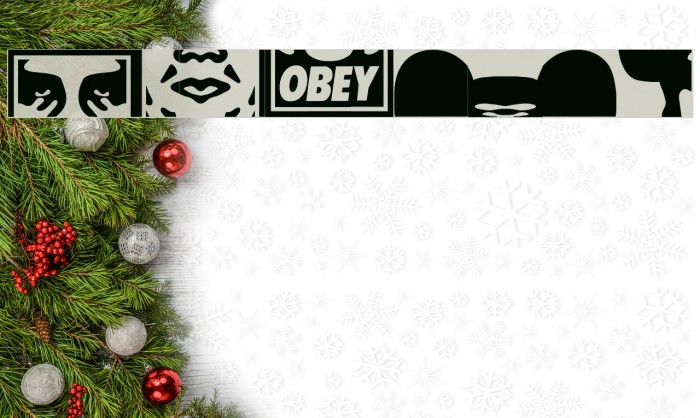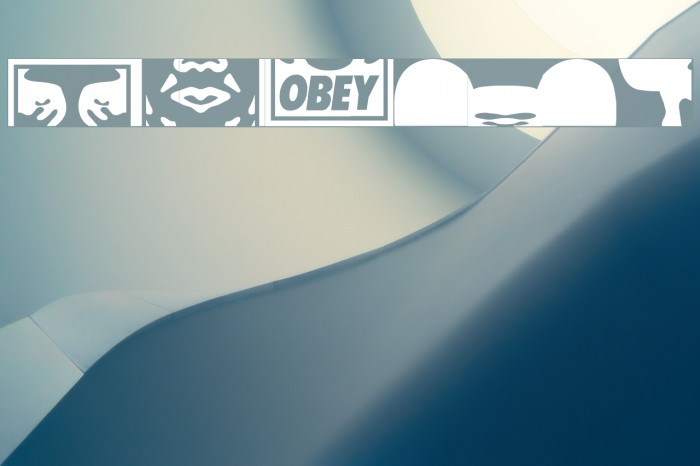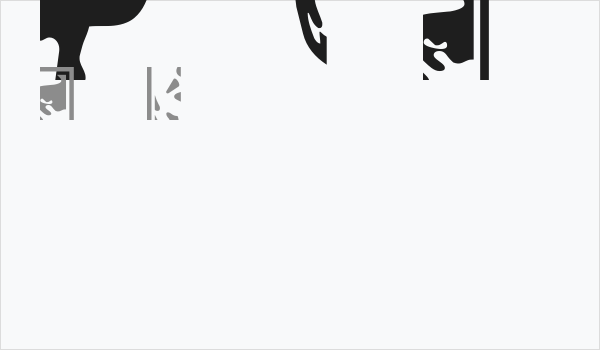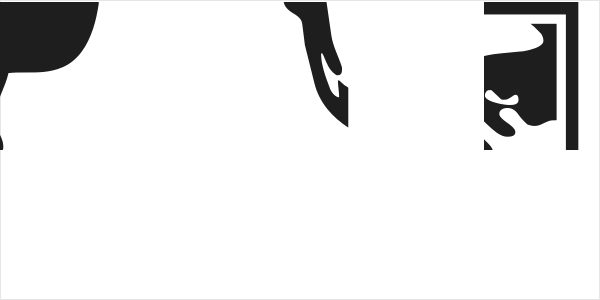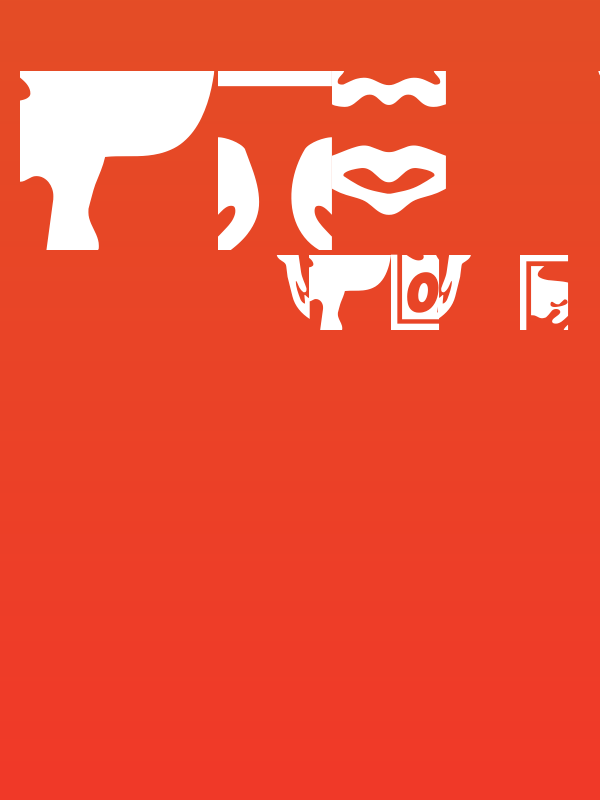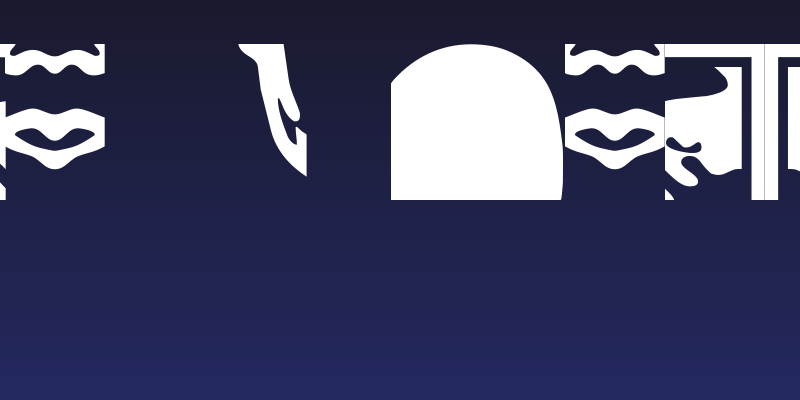
ObeyPuzzleCaps Font
ObeyPuzzleCaps Description
This is not a valid font. The image contains graphic elements and designs that do not represent a complete or usable typeface. The elements appear to be part of a visual artwork or logo rather than a functional font set.
| Use Case | Logos, Artistic designs |
| Proposed Projects | This design could be used for artistic projects, branding, or logo design. |